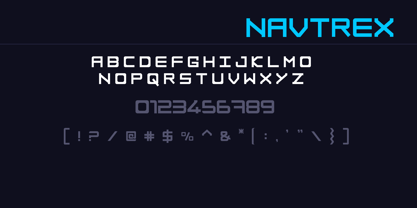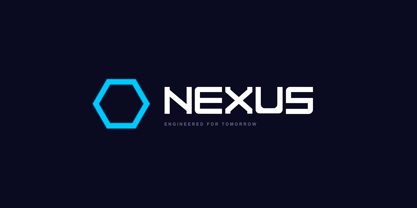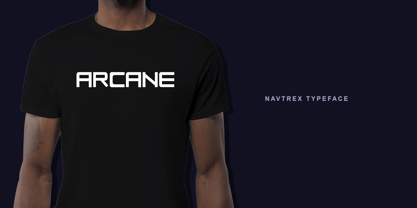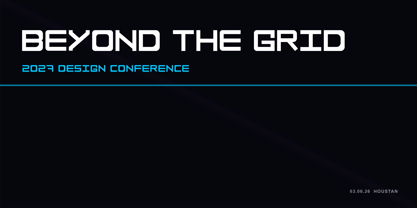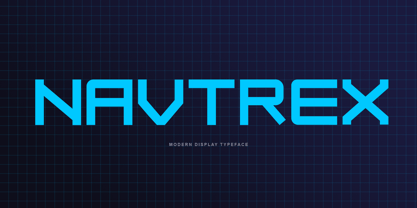
Navtrex
Navtrex is a modern geometric display typeface designed with clean construction, balanced proportions, and strong visual impact. Its distinctive character shapes make it suitable for logos, branding, headlines, posters, packaging, social media graphics, and creative design projects. Navtrex combines a contemporary aesthetic with readability, making it a versatile choice for designers seeking a bold and memorable visual identity.